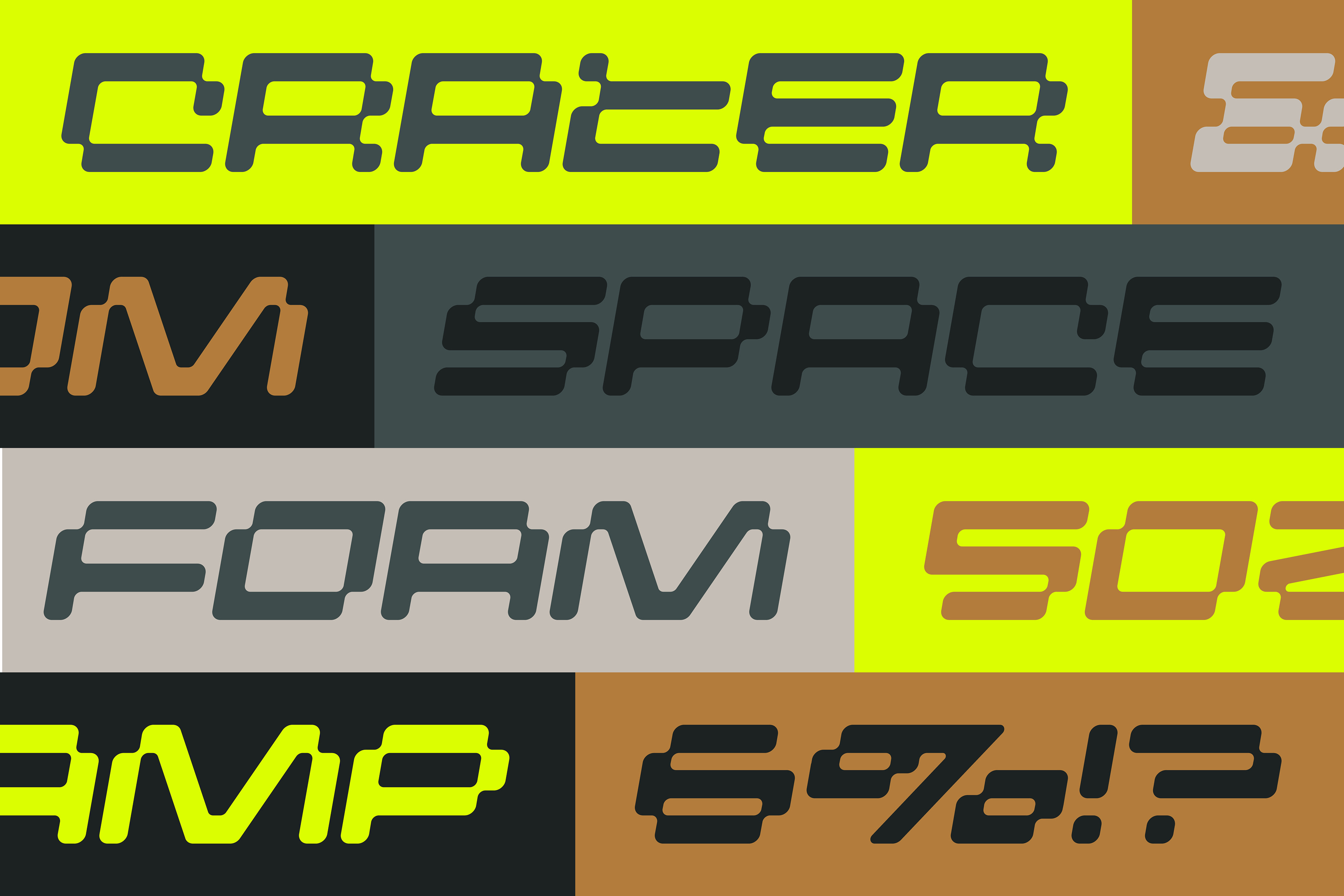
CRATER ITALIC Font
Crater Italic is an extra wide, italic, digital display font with unique, futuristic features. Currently 87 glyphs total, Crater Italic includes uppercase, some lowercase, numbers, punctuation, and special characters.